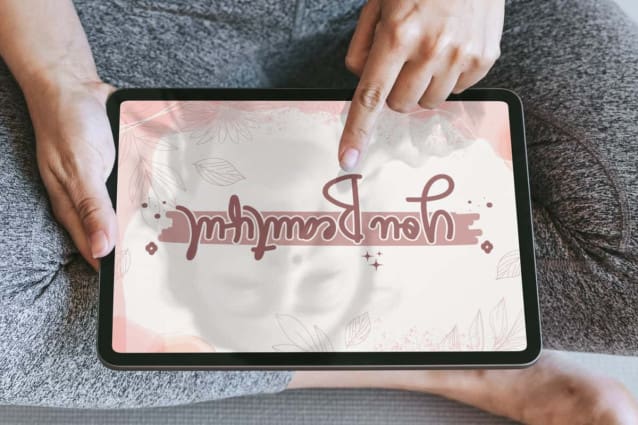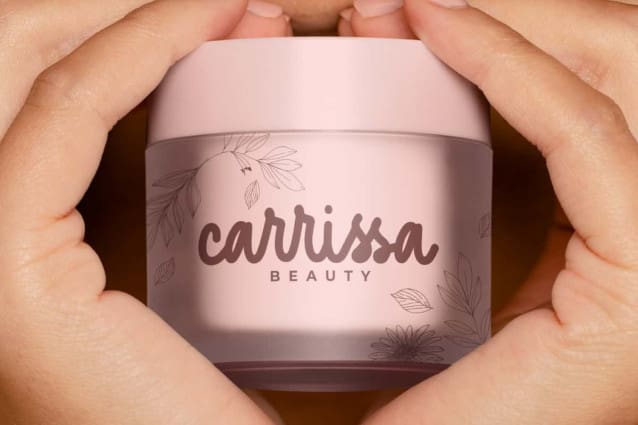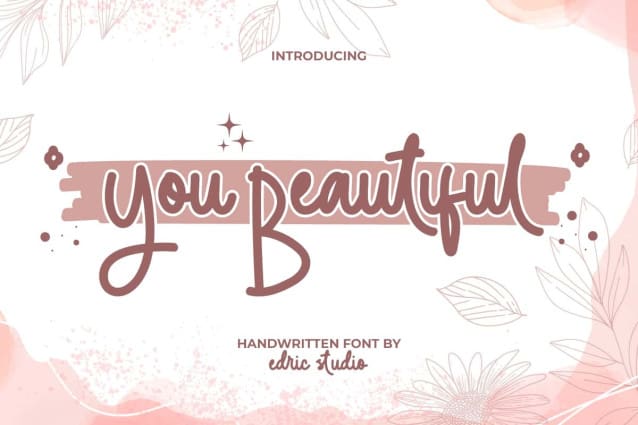
You Beautiful Font
You Beautiful Font is a casual yet cute handwritten font that features lots of ligatures and other interesting things. It is designed exactly by hand to give a really natural touch. You can adjust it according to your taste until you get the look you want! Perfect for blog, greeting cards, headers, label, logos, mockup design, stationery, sticker, titles, watermarks, websites, etc.
You Beautiful Font comes with a full set of Uppercase and Lowercase Basic Characters, Number, Punctuation, Symbol, Ligature and Swoosh. If you look more closely, the style of the capital letters is different from usual, this time it is level with the top of the small letters, making it long downwards when combined in one sentence. With its thickened and rounded shape, it is perfect for representing your brand or your work with a fun touch. This font is ready for advert, beauty clinic, cosmetic influence, graphic design, photographer, skincare, spa salon and more.